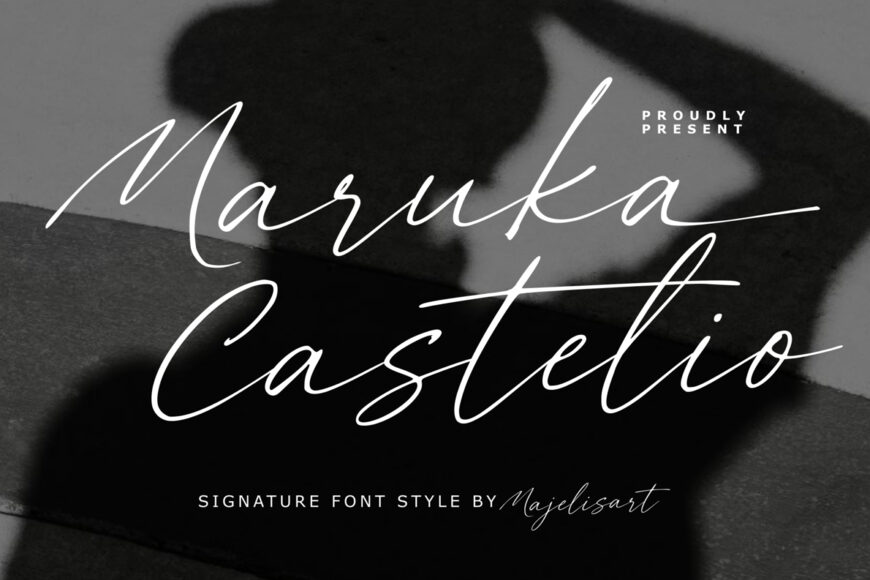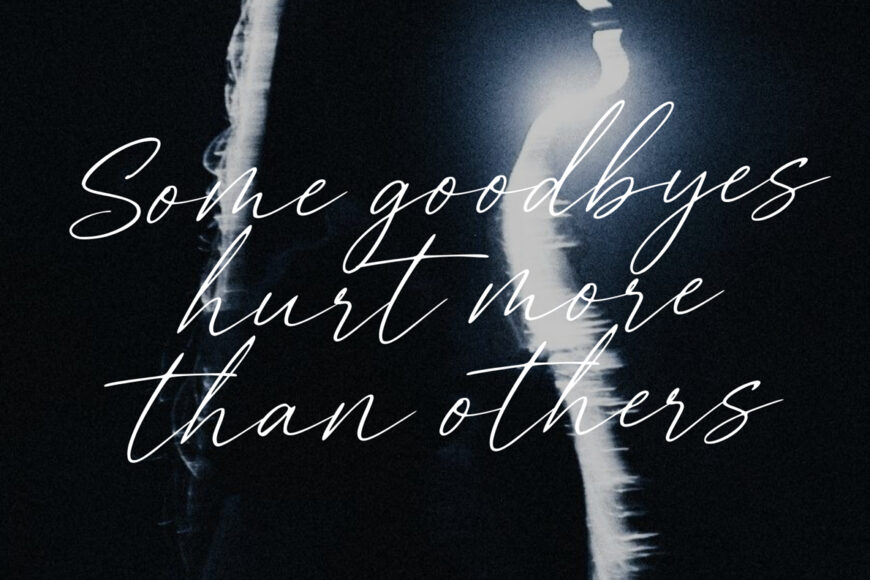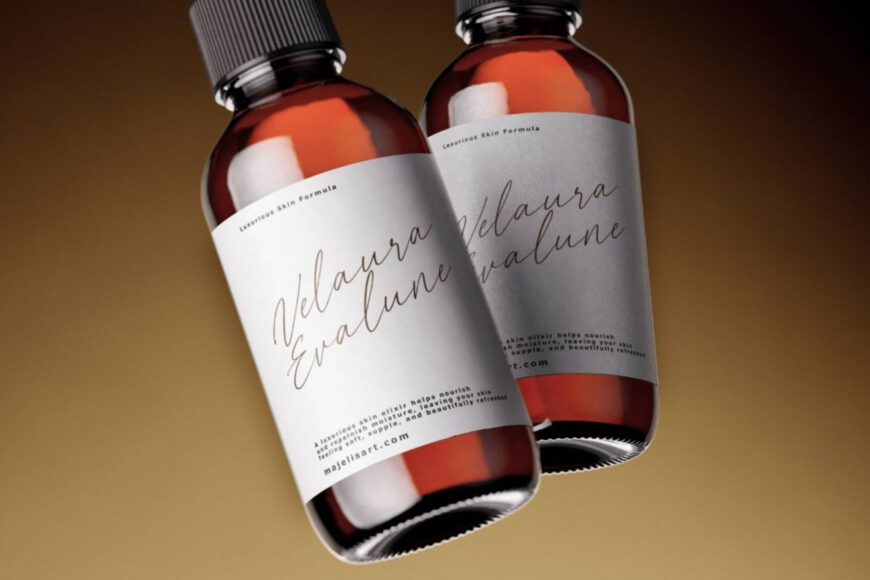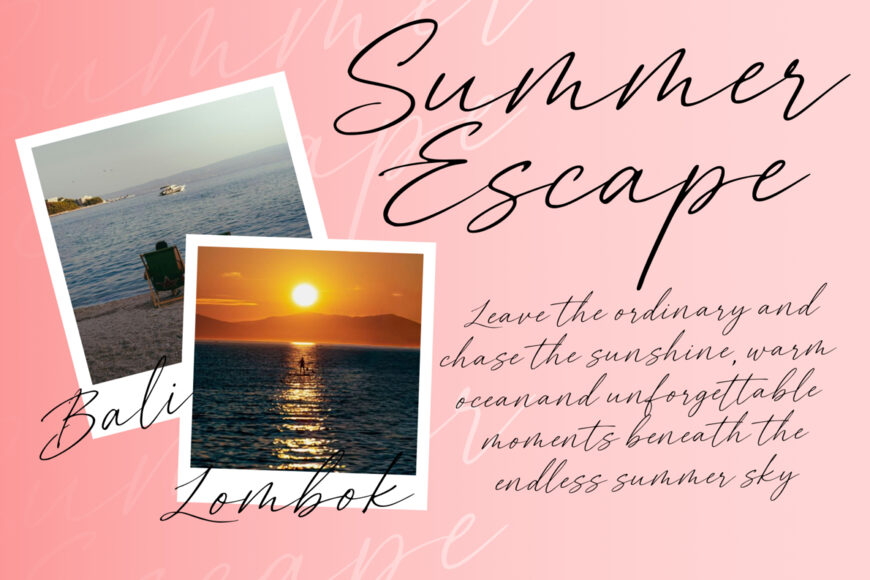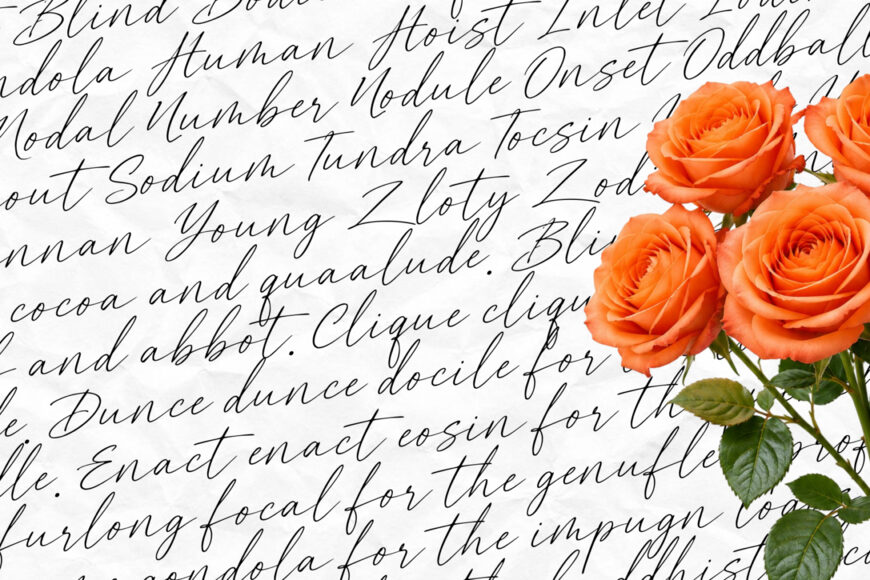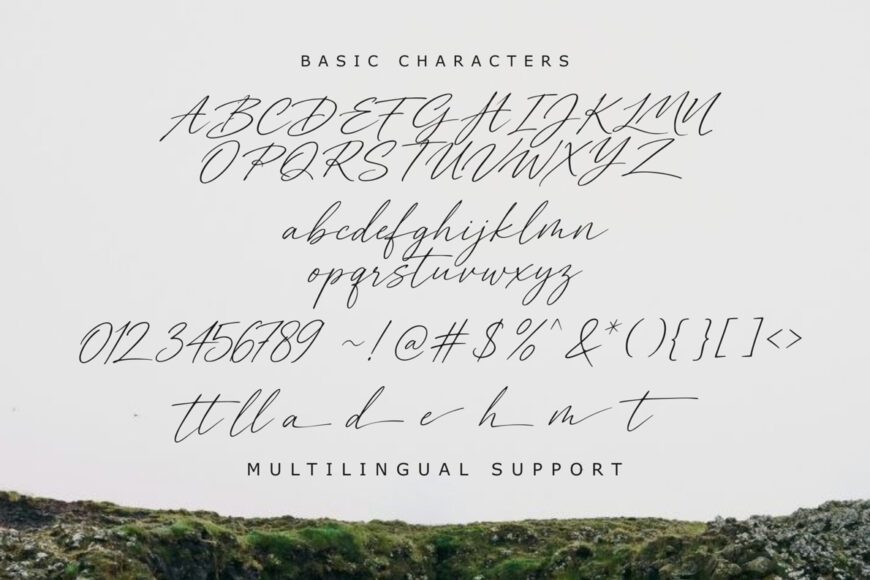
Introducing Maruka Castelio, an elegant and sophisticated Signature Script Typeface designed to capture the natural beauty of handwritten signatures.
Featuring thin, flowing strokes, graceful curves, extended swashes, and an effortless handwritten rhythm, Marika Castelio creates a refined and personal aesthetic. Its elegant appearance makes it ideal for designs that require a touch of luxury, femininity, sophistication, and exclusivity.